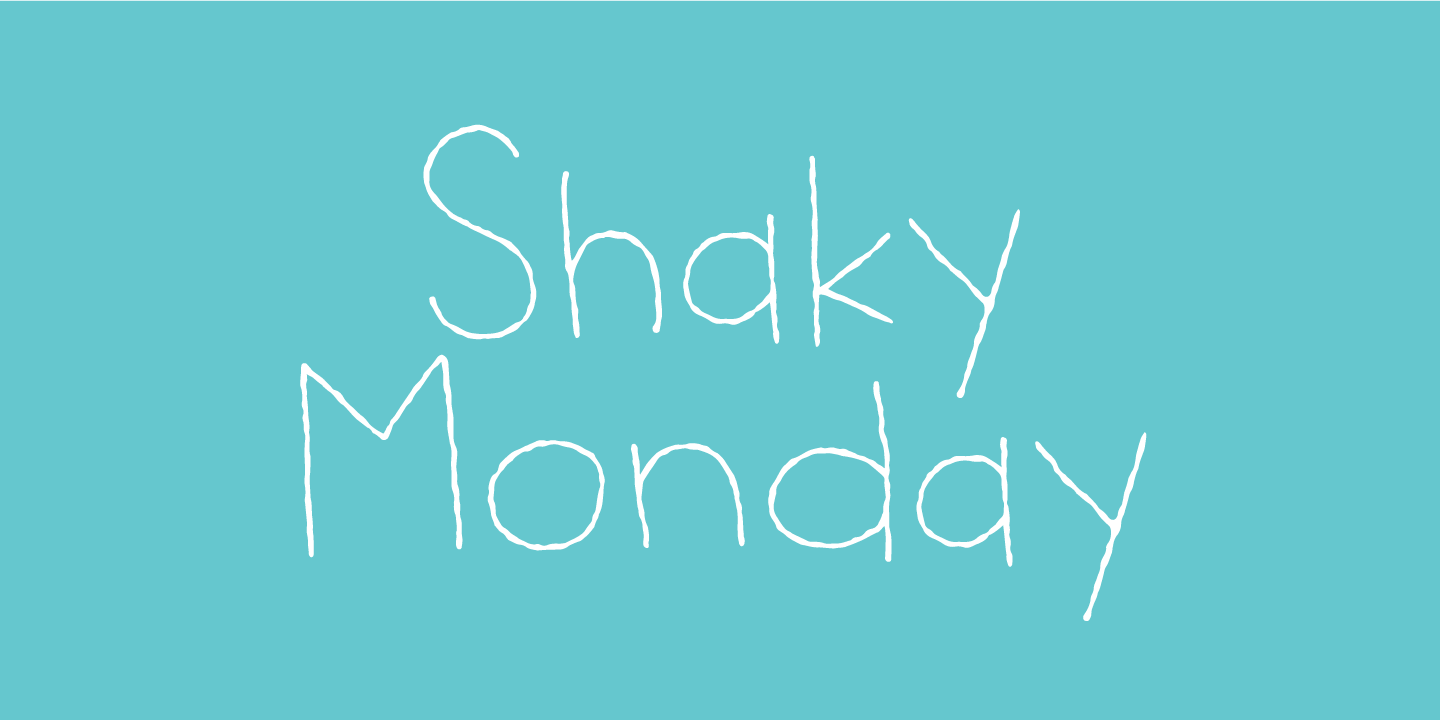
Shaky Monday Font is perfect for handmade craft branding, quirky coffee shop signage, playful children's book designs, casual blog headers, creative workshop materials, indie band album covers, fun social media graphics, and authentic handwritten-style projects.
What makes Shaky Monday Font exciting is its genuine handwritten charm and playful imperfection that brings authentic human touch to digital designs. This delightful typeface combines natural writing variations with carefully crafted readability, creating letters that feel spontaneous, friendly, and refreshingly personal. The font's organic character fluctuations and casual aesthetic make it an essential tool for brands seeking to communicate authenticity, approachability, and creative spontaneity.
Shaky Monday Font family includes Regular, Bold, Light, Rough, Clean, and Marker variations, plus decorative doodles and hand-drawn elements. Each style maintains the font's handwritten character while providing comprehensive flexibility for creating authentic casual design systems and personal brand communications that feel genuinely human.
Casual design specialists consistently choose Shaky Monday Font Free Download for projects requiring authentic handwritten appeal and playful visual impact. This remarkable typeface has gained popularity among independent brands, creative entrepreneurs, and casual lifestyle companies worldwide. The font's ability to convey friendliness and authentic personality makes it perfect for brands operating in creative, casual, and artisanal markets.
The design philosophy behind Shaky Monday Font emphasizes natural authenticity and playful spontaneity. Its letterforms feature genuine writing variations and carefully preserved imperfections that reflect real handwriting characteristics while maintaining excellent legibility. The font's distinctive elements include natural letter spacing fluctuations and organic character variations that create immediate emotional connection with audiences seeking authentic, personal experiences.
Creative agencies specializing in casual and artisanal branding frequently select Shaky Monday Font for clients requiring authentic personal communication and approachable brand expression. The font's versatility allows seamless integration into comprehensive casual branding systems, from craft business campaigns to personal blog designs, ensuring consistent brand personality across all authentic and handwritten touchpoints.
The technical execution of Shaky Monday Font demonstrates advanced understanding of handwritten typography requirements and casual design standards. Optimized for both digital and print applications, the font includes extensive OpenType features that support natural writing workflows. The comprehensive character set and variation library make it suitable for international casual campaigns requiring authentic handwritten typography with global personal appeal.